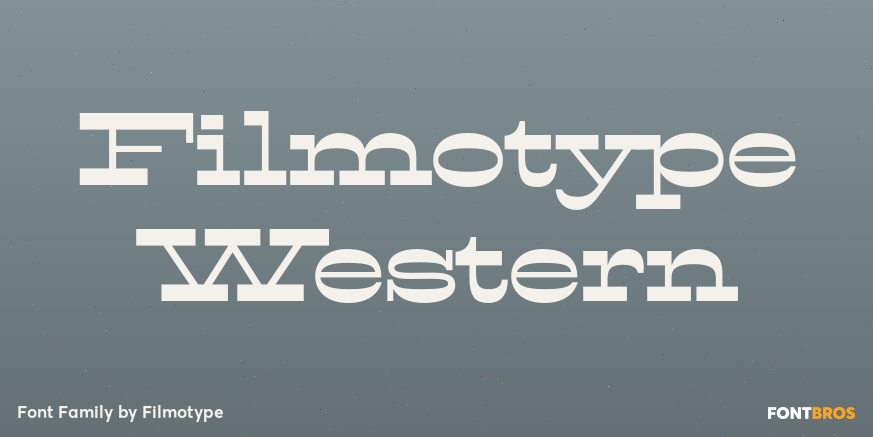
Filmotype Western
About Filmotype Western
Inspired by French Antique reverse-stress types of the 1880s, Filmotype Western was released in 1955 to expand its Flat Serif category. Popular in broadsides, circus posters and advertisements at the turn of the 19th century, Filmotype Western will add…